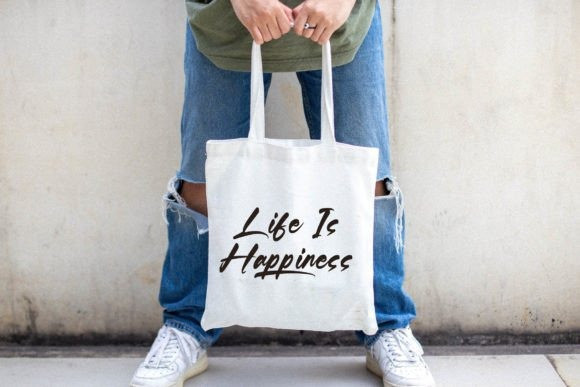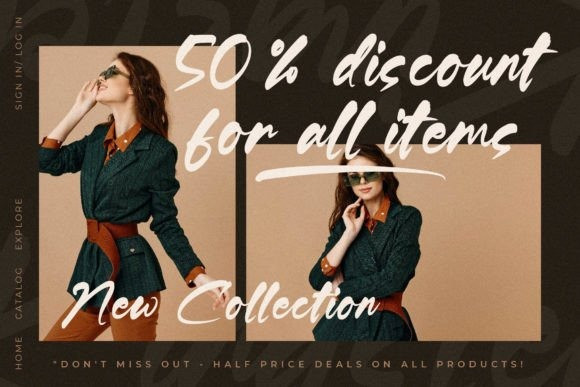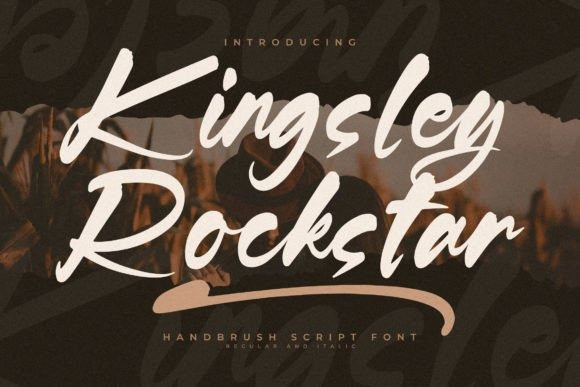
Kingsley Rockstar Font
Kingsley Rockstar Font is a hand brush script font, suitable for any project such as logos, branding projects, homeware designs, product packaging, mugs, quotes, posters, shopping bags, t-shirts, book covers, name card, invitation cards, greeting cards, label, photography, watermark, special events, and all your other lovely projects that need a beautiful script touch.